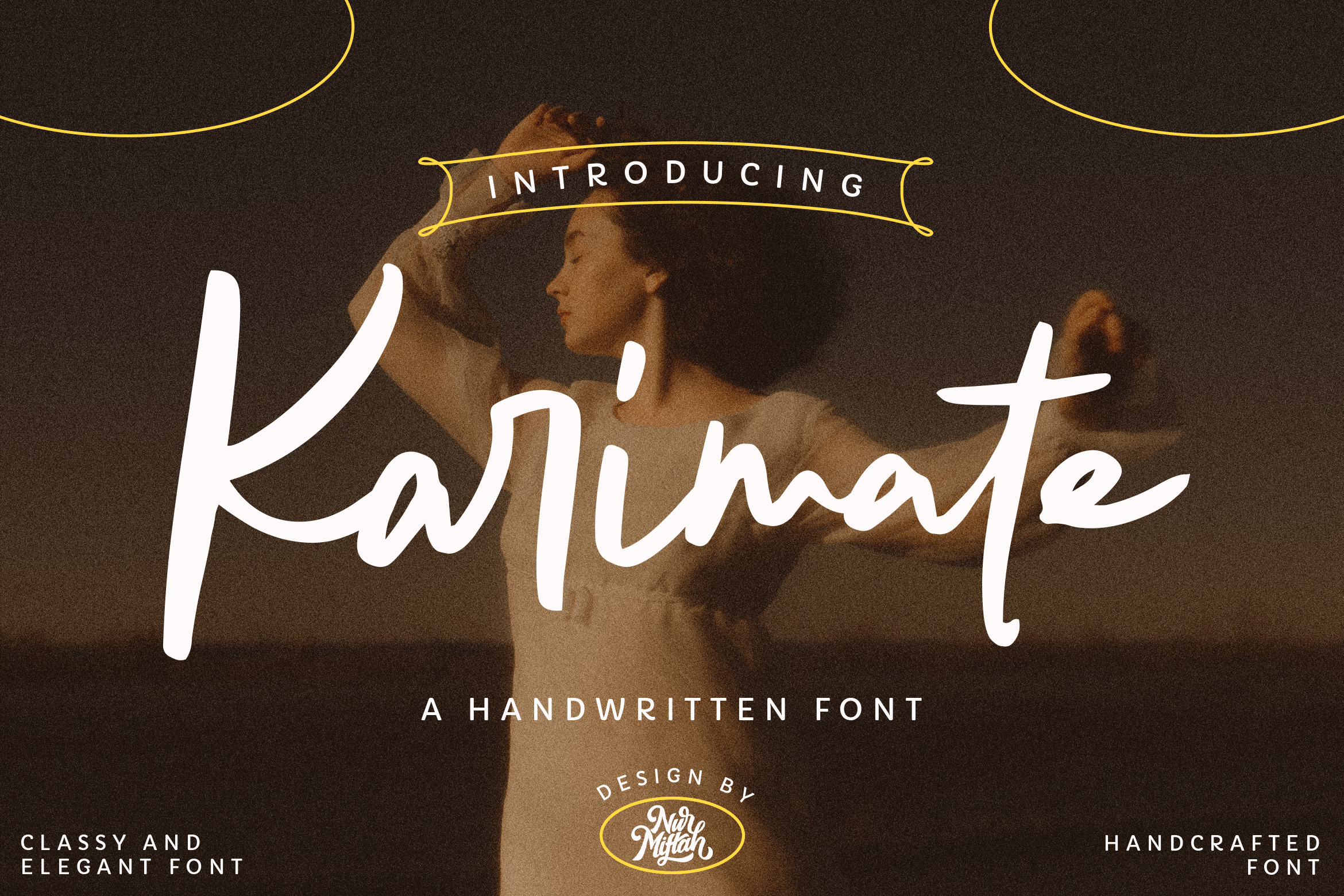
Karimate Handwritten Font
Karimate Font can be used for various media like special events, invitation, packaging, poster, wedding, movie titles, book titles, social media, logos, branding, and others.